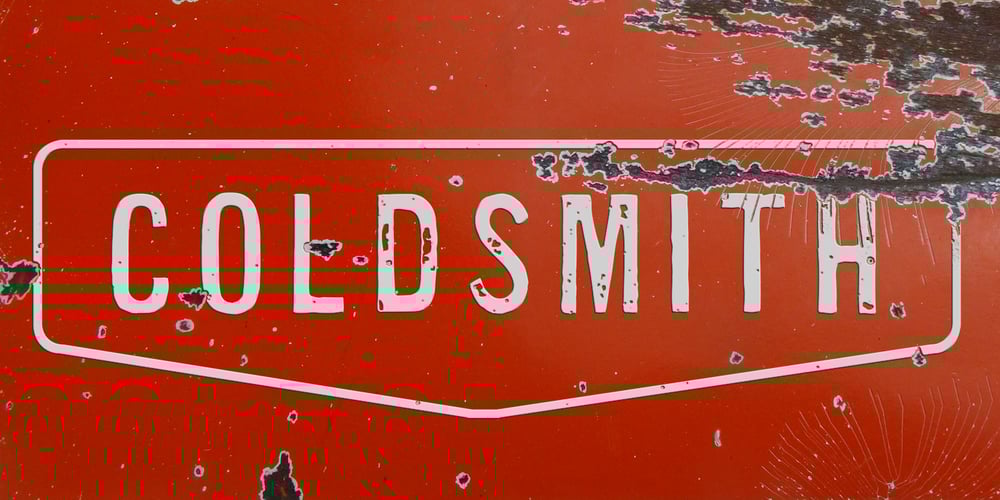
Coldsmith Font Family was designed by Stephen Miggas and published by Aerotype. Coldsmith contains 2 styles and family package options. Coldsmith uses the OpenType ligature feature to substitute a unique pair of distressed characters when any upper or lower case letter is keyed twice in a row. Coldsmith Pro extends the character set to support Eastern European Latin, Baltic, Greek and Turkish.